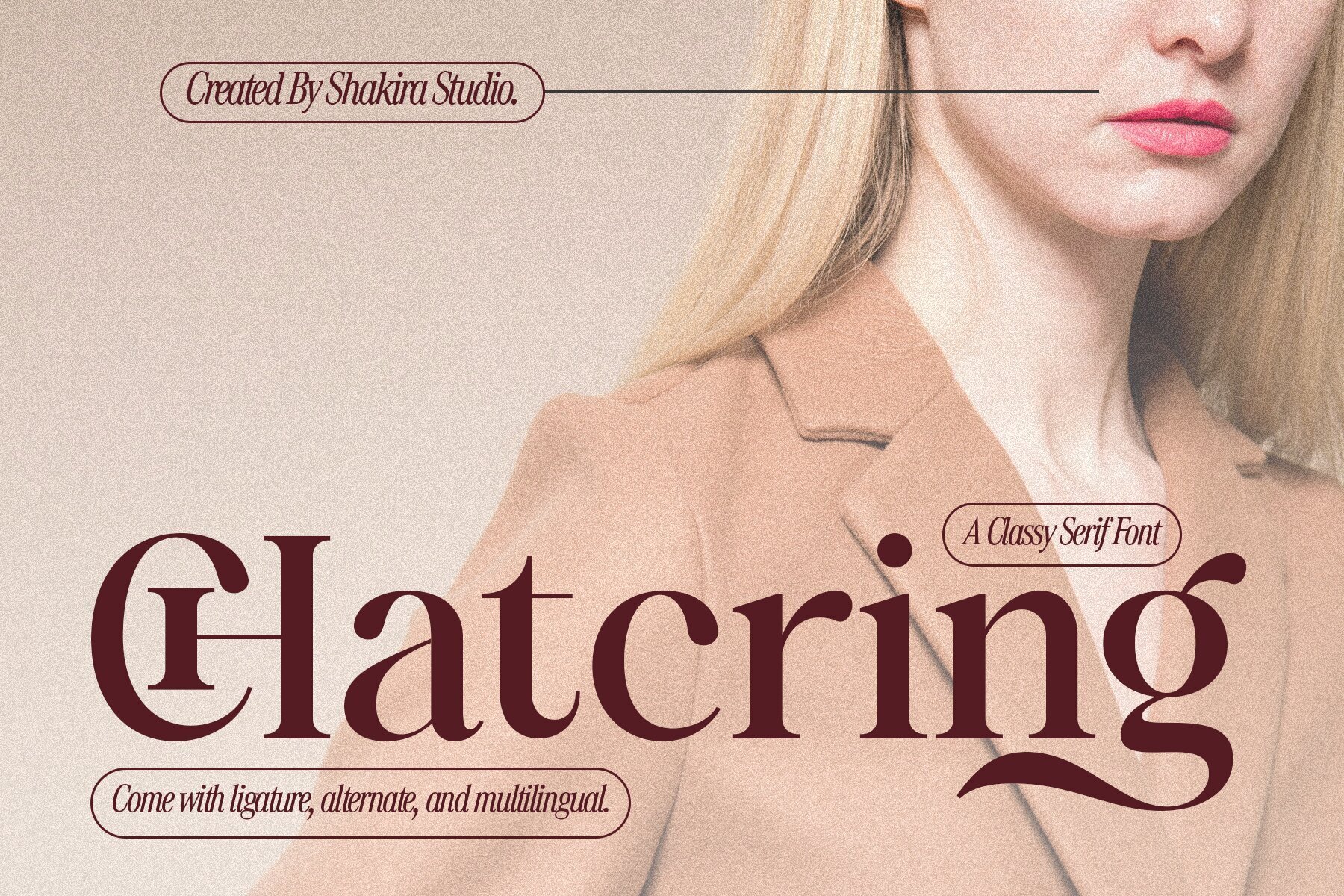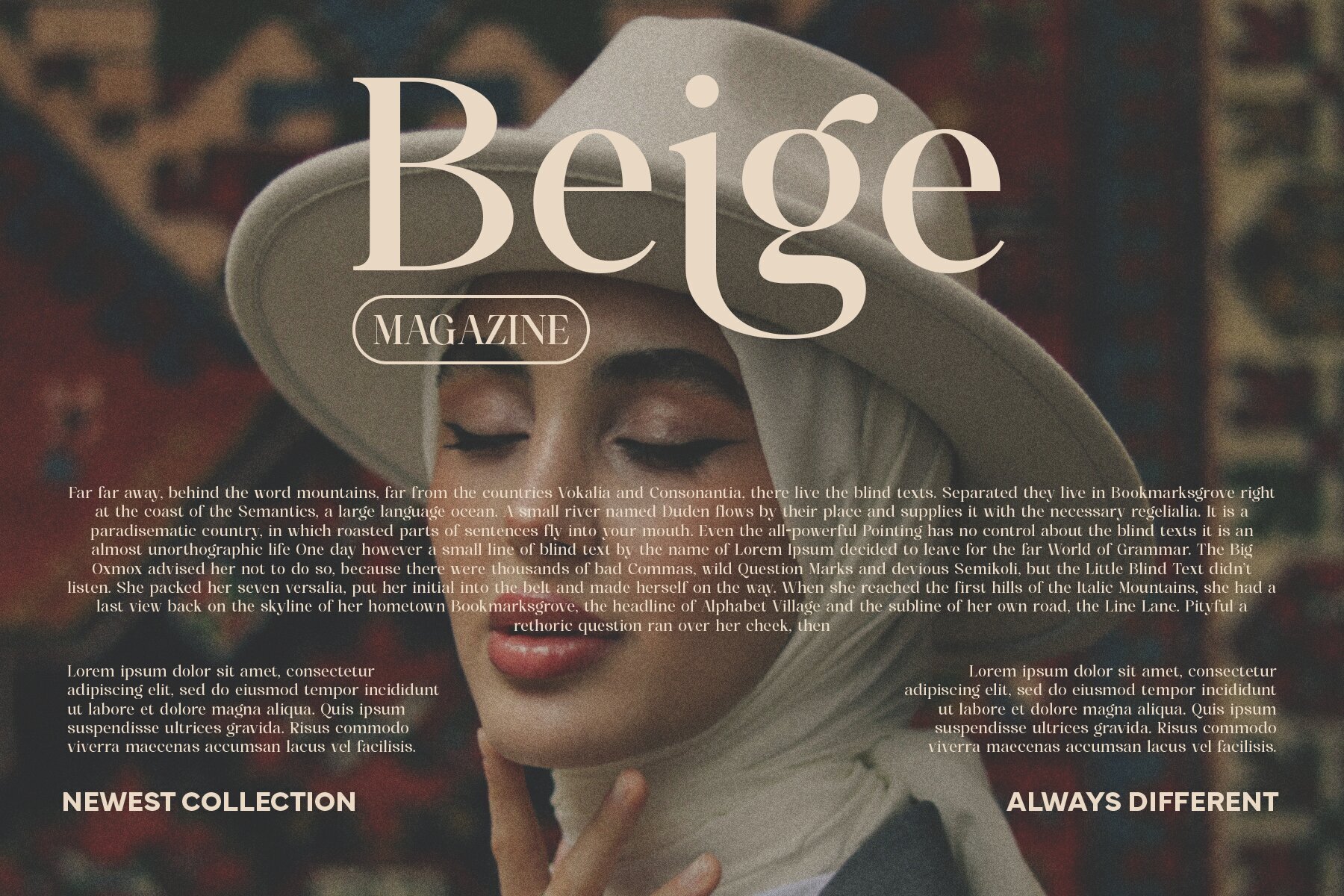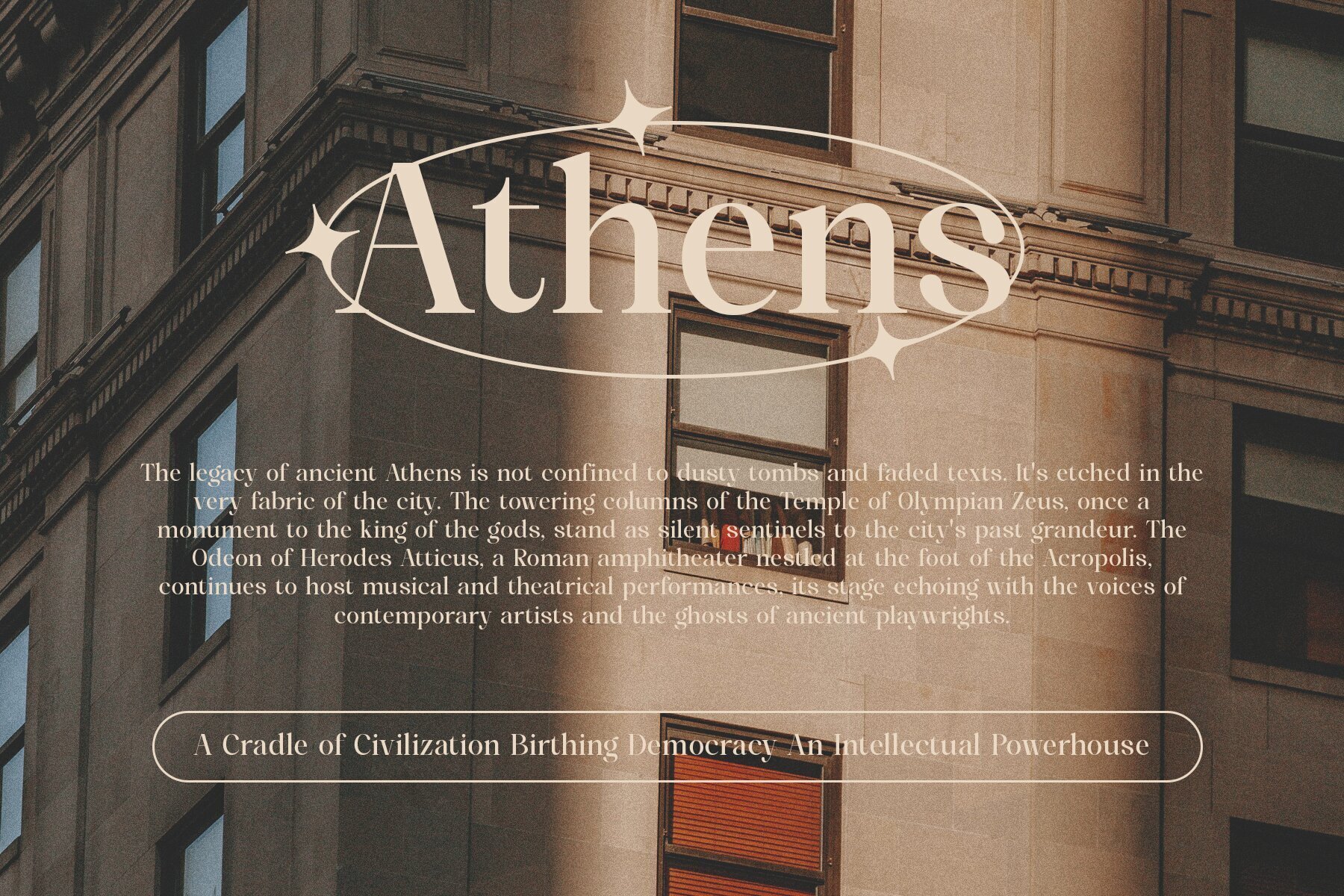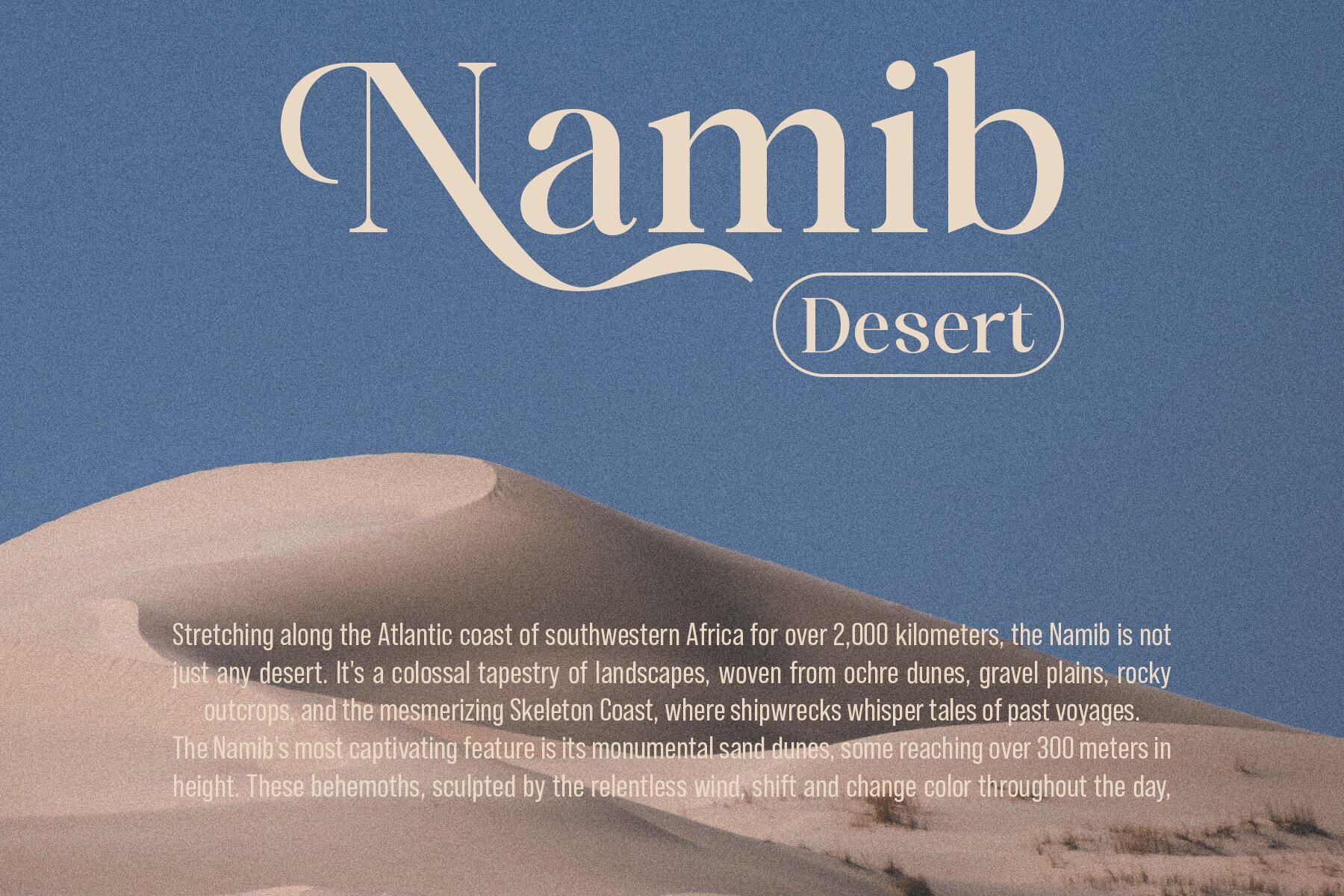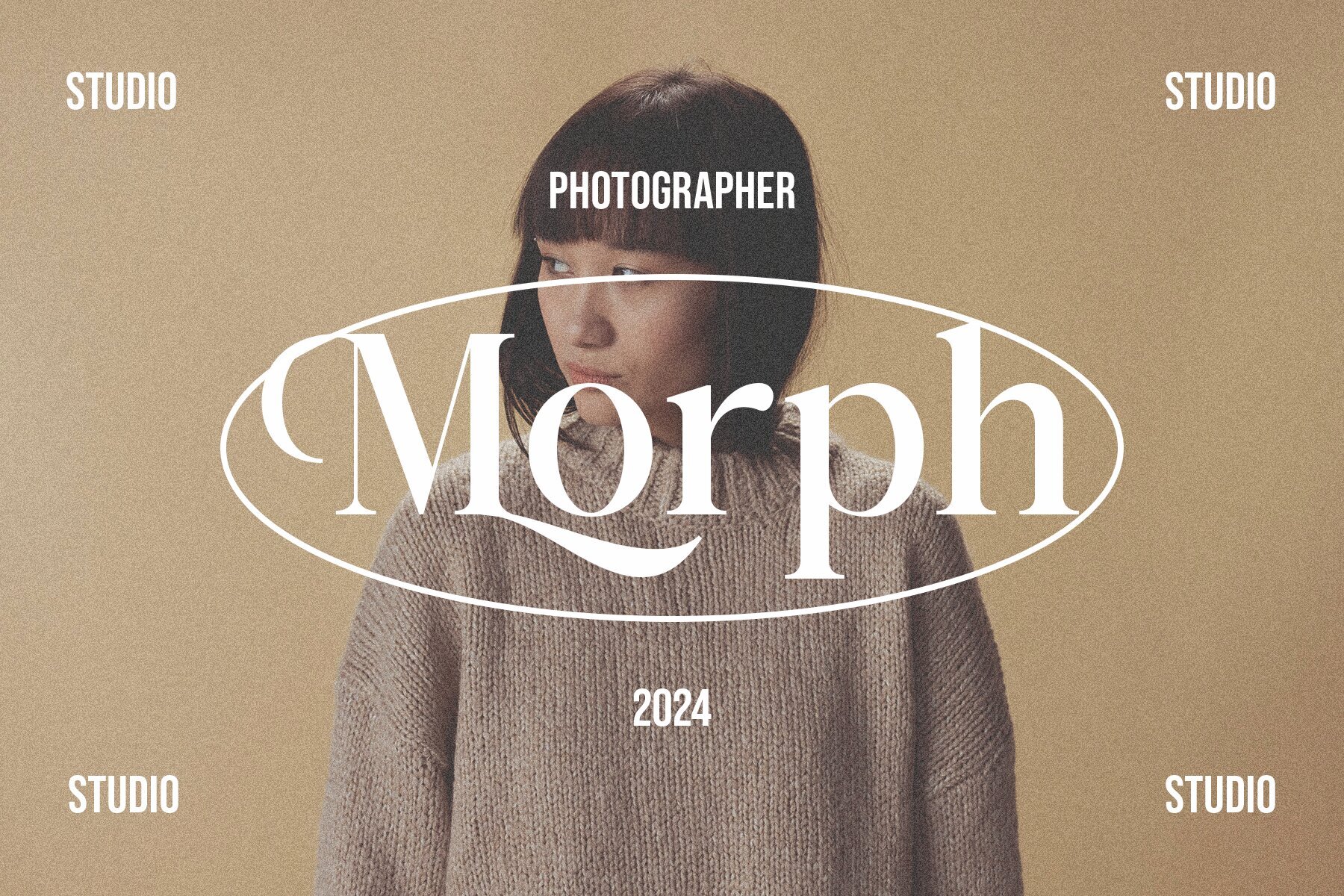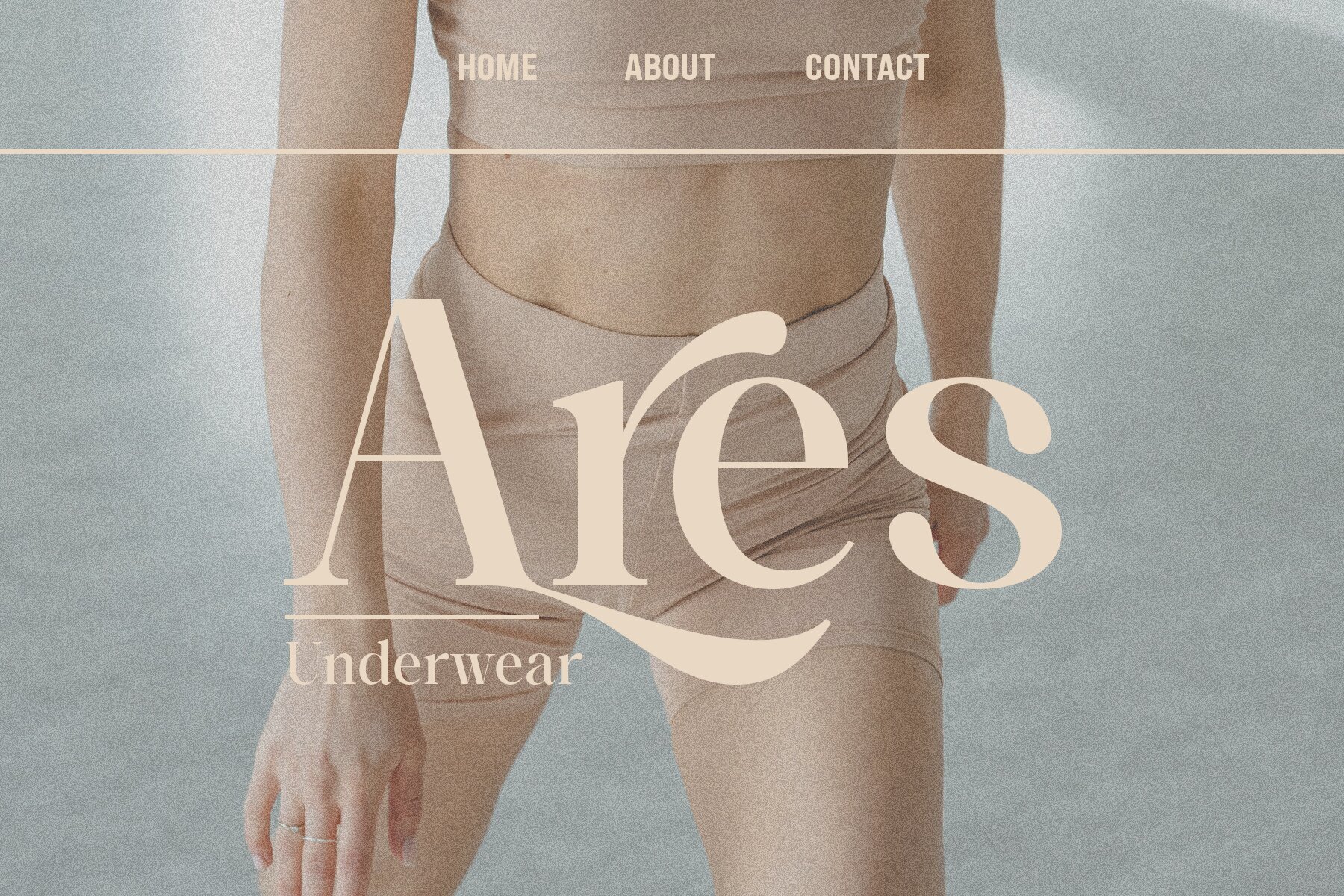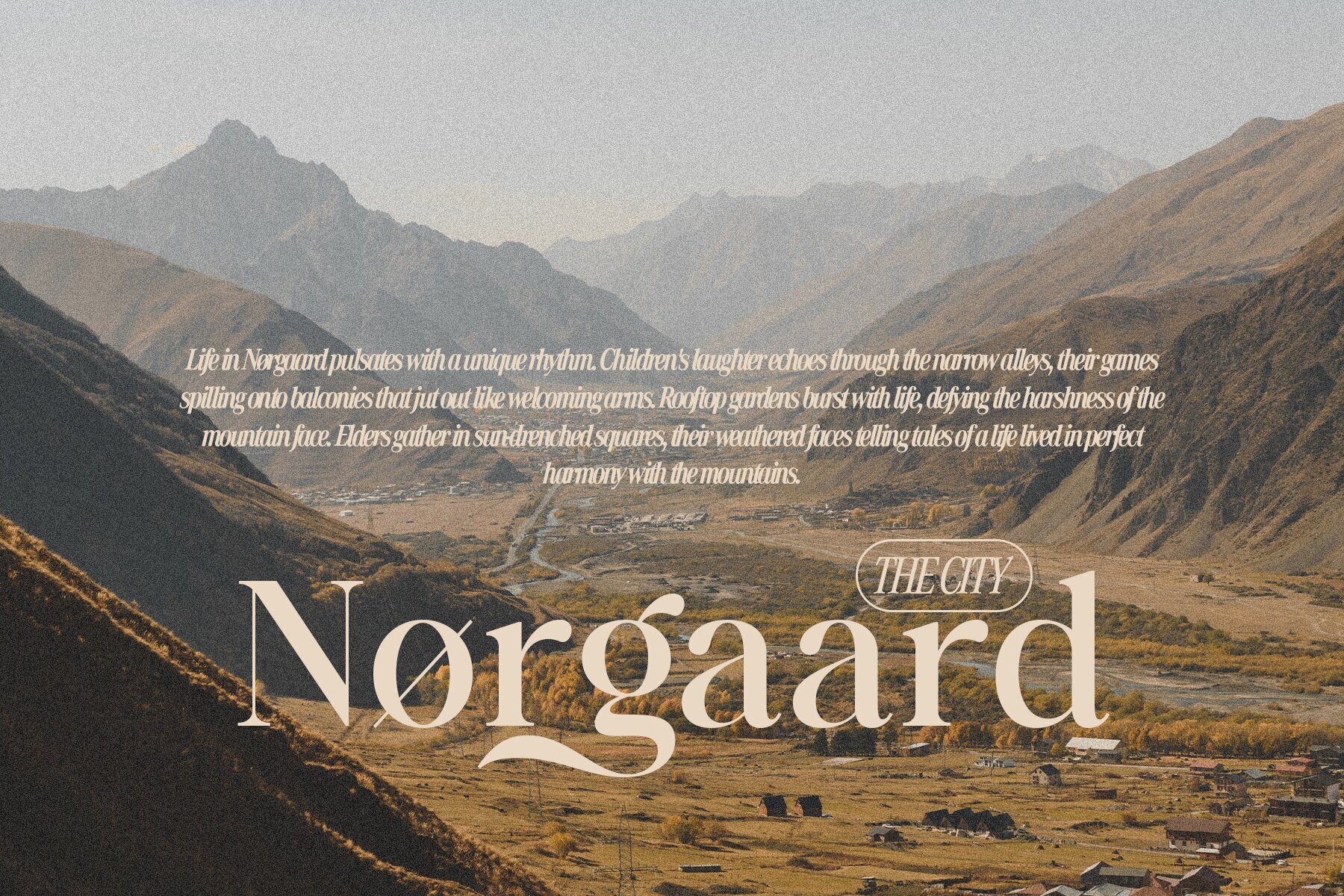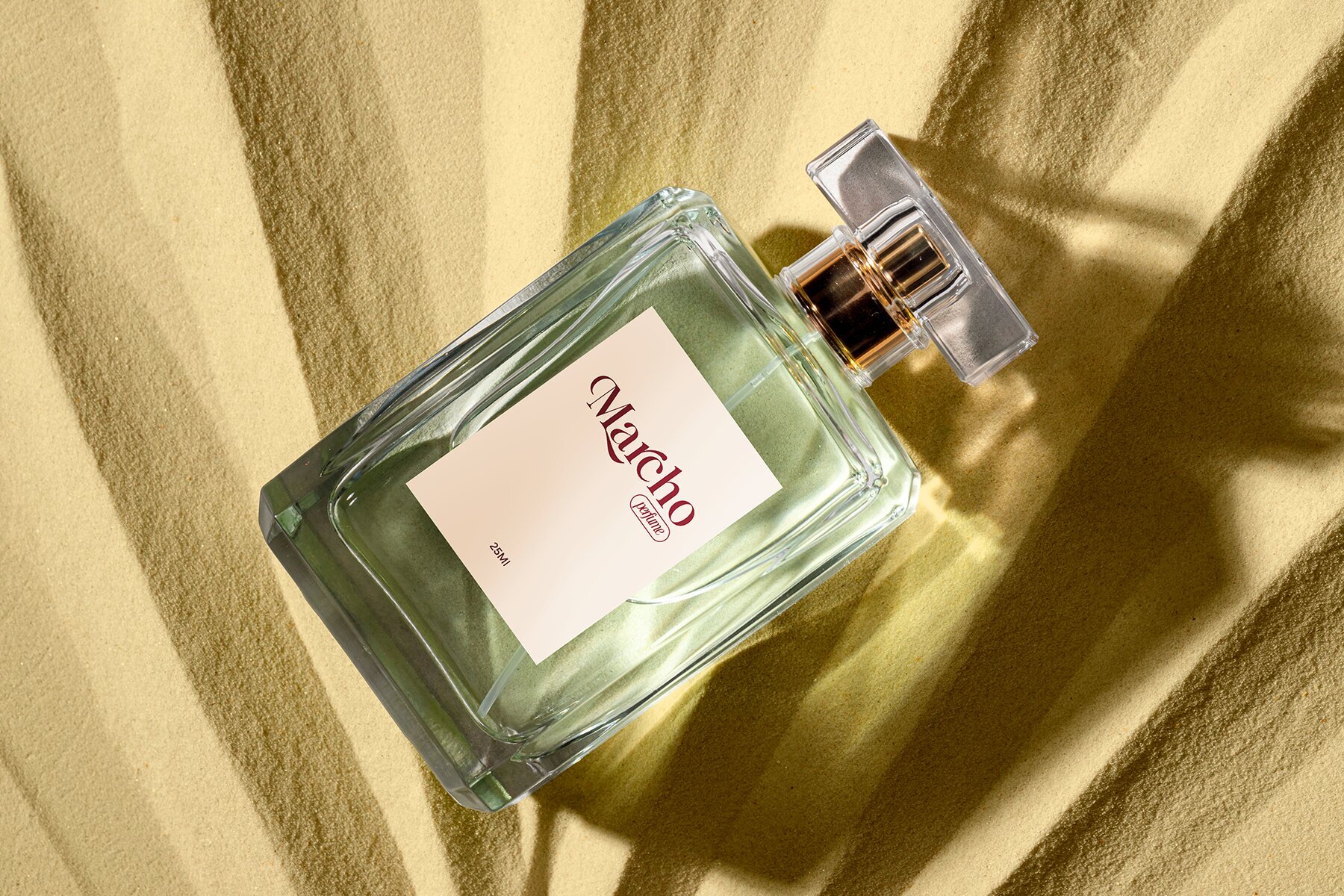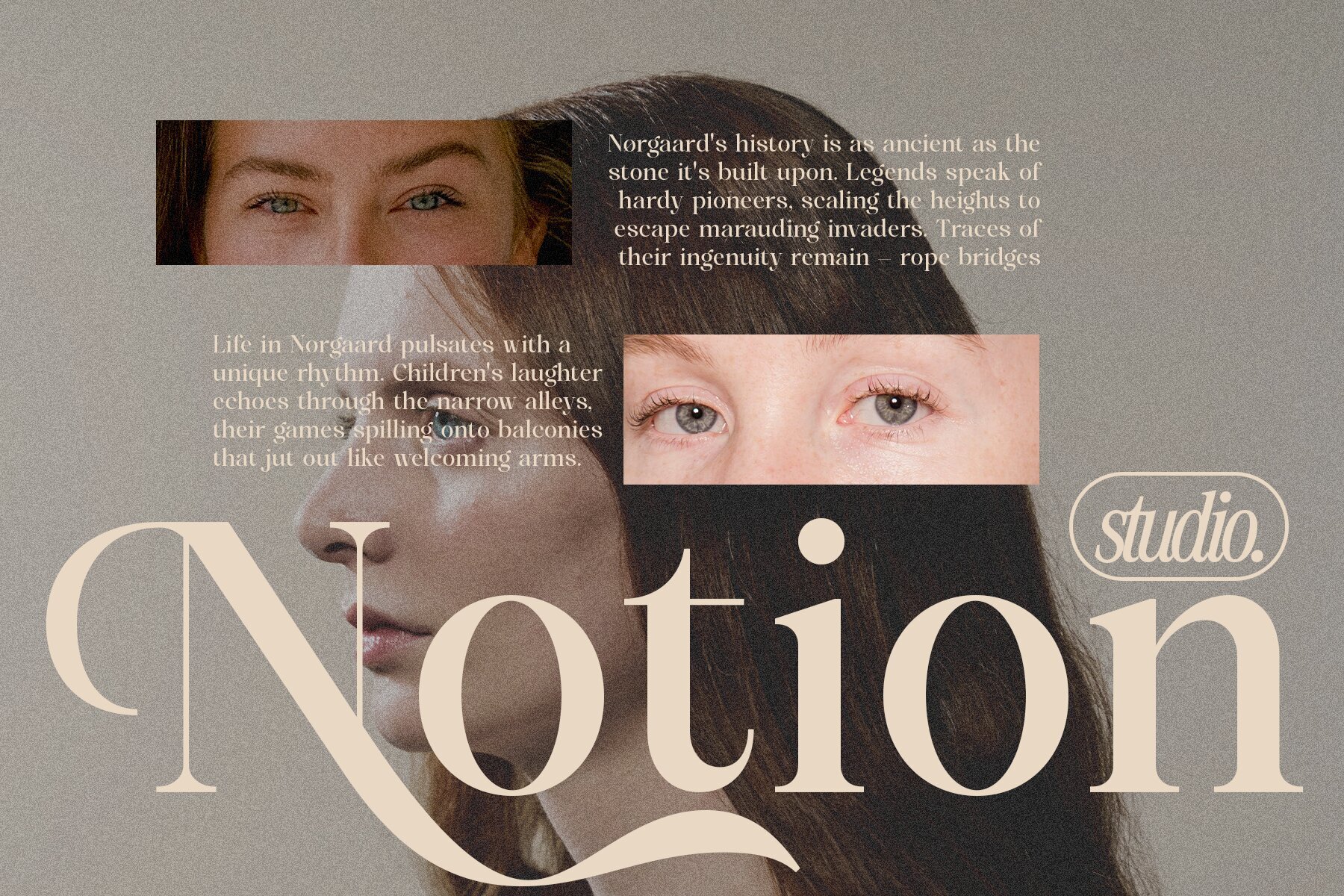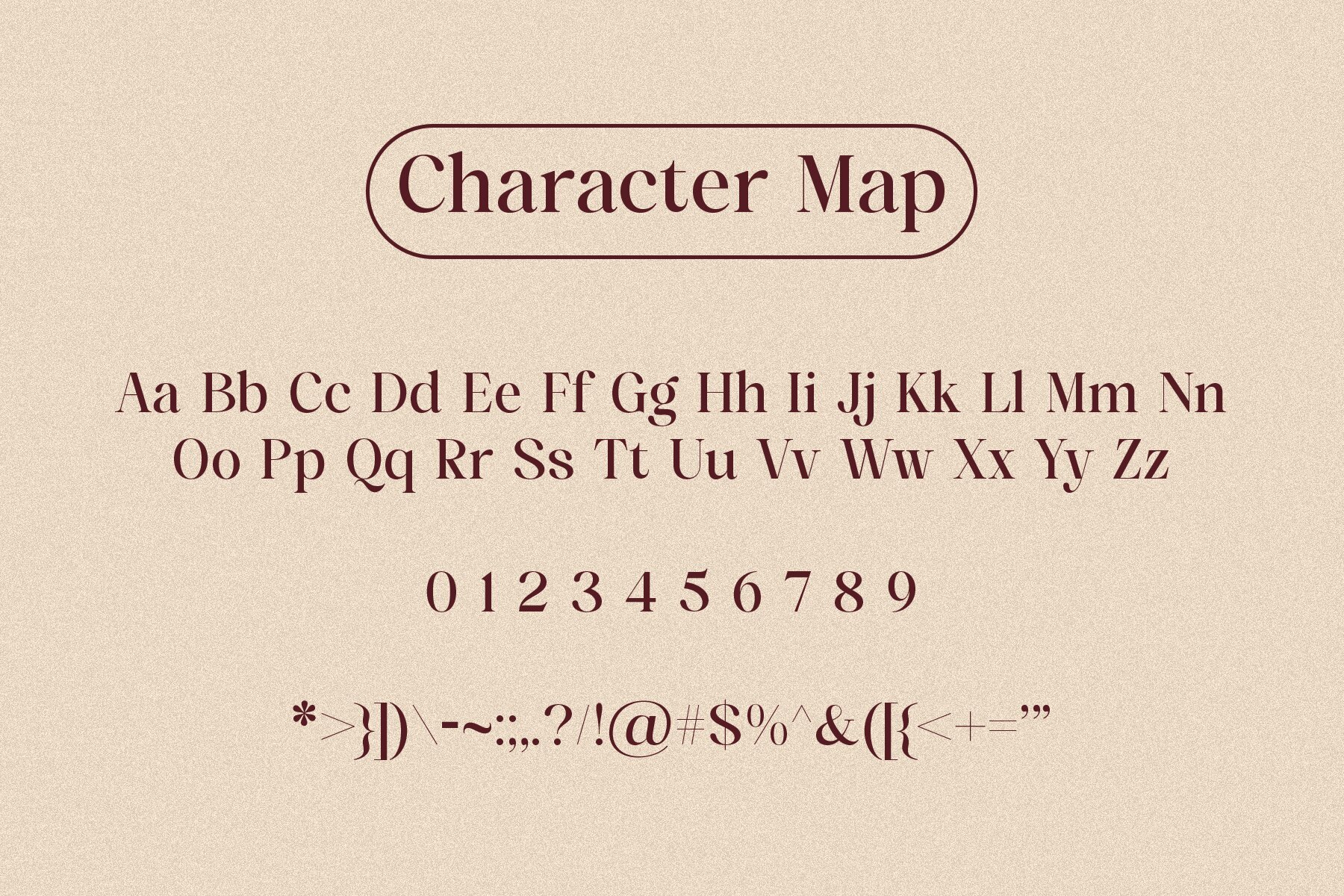
Chatcring Font
Chatcring Regular
Chatcring Italic
Chatcring is a refined serif font, embodying sophistication and a contemporary twist in modern typography. Ideal for designers seeking timeless elegance, Chatcring is perfect for logos, branding materials, and editorial layouts, adding a luxurious touch to any project. Unleash your creativity and elevate your designs with Chatcring. Join the movement towards timeless sophistication in typography and let your projects shine with this modern serif elegance. For more updates and works, follow our shop. Thank you!Chatcring: Modern Classy Serif Elegance
Design with Chatcring